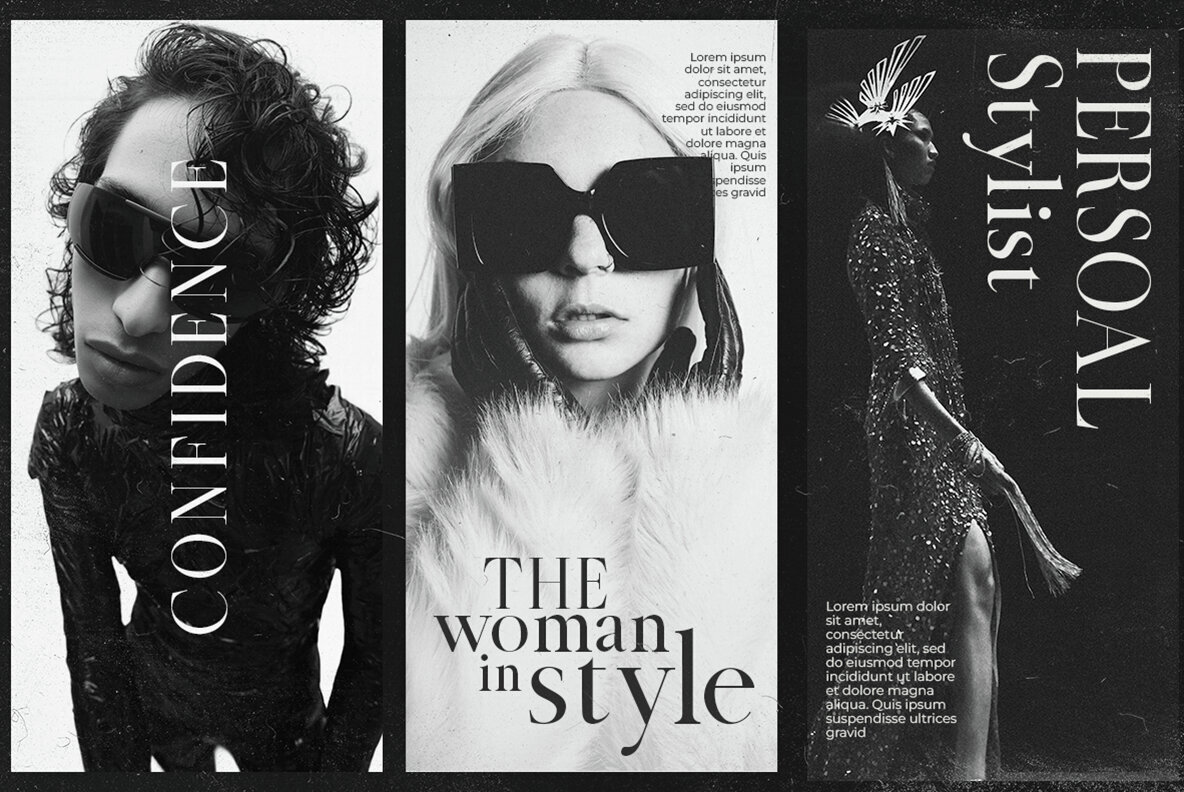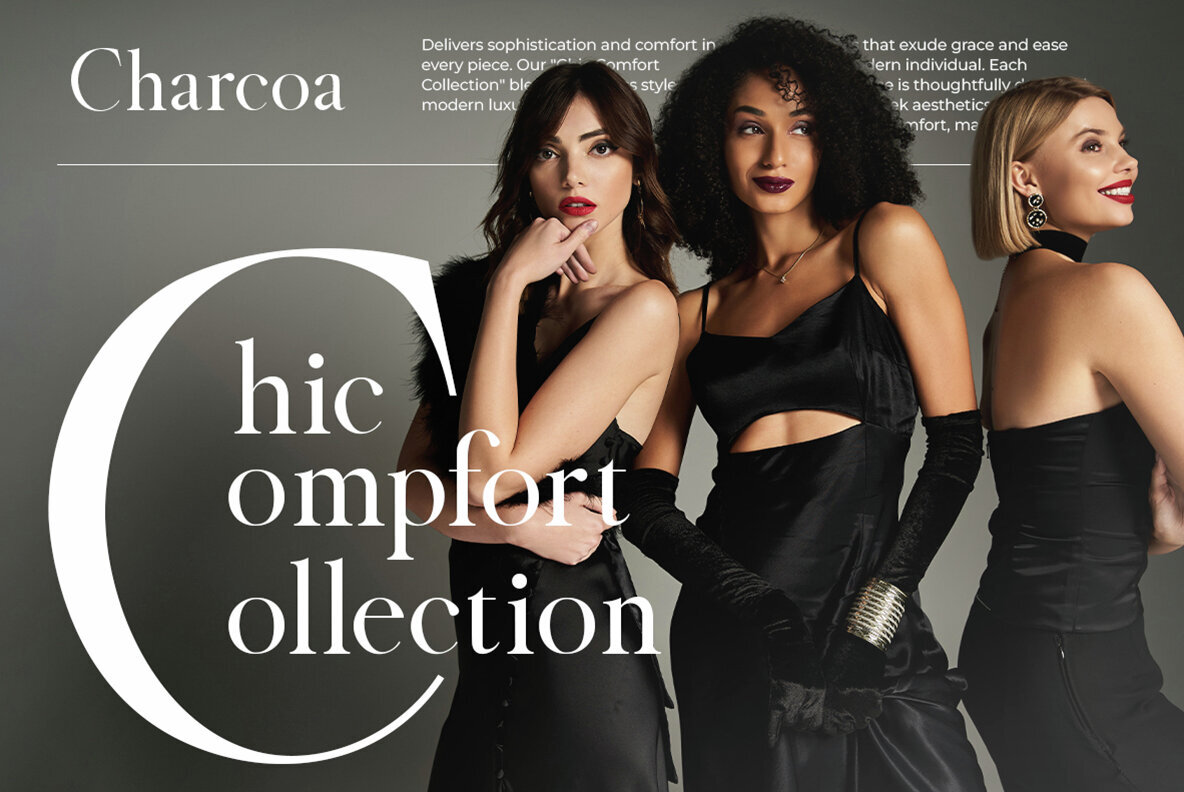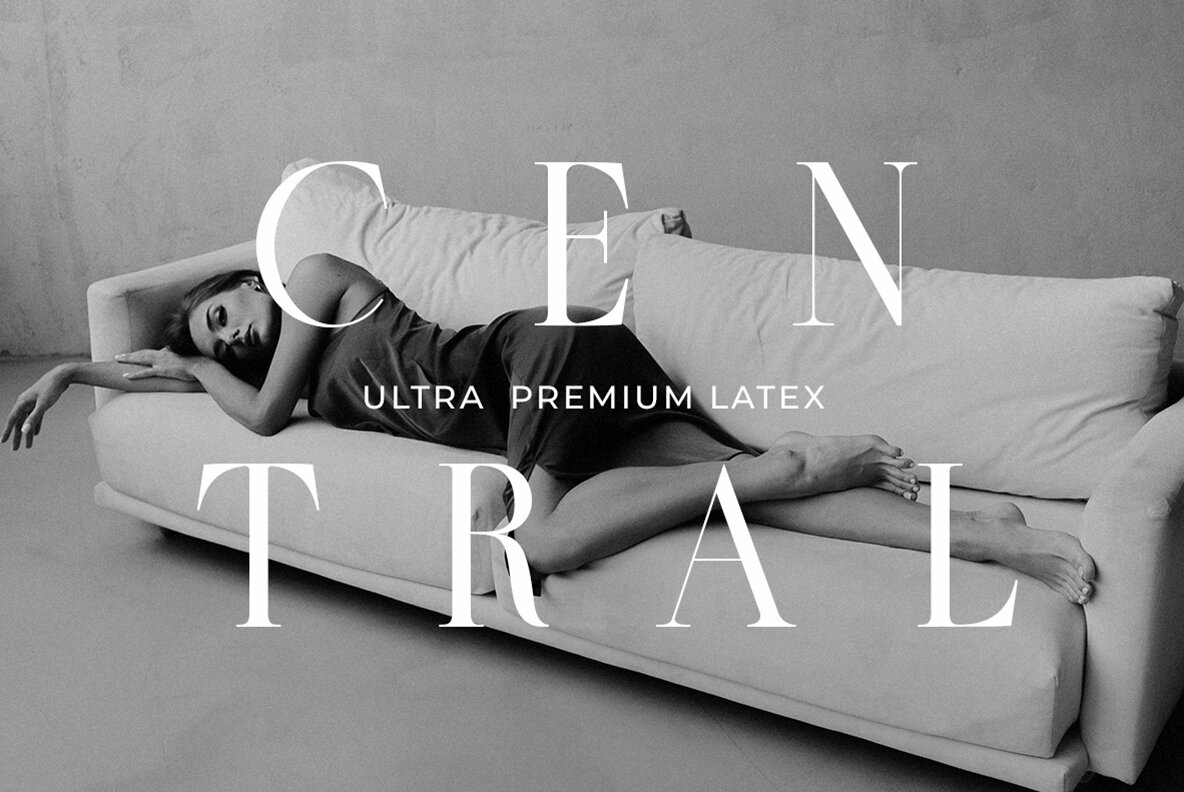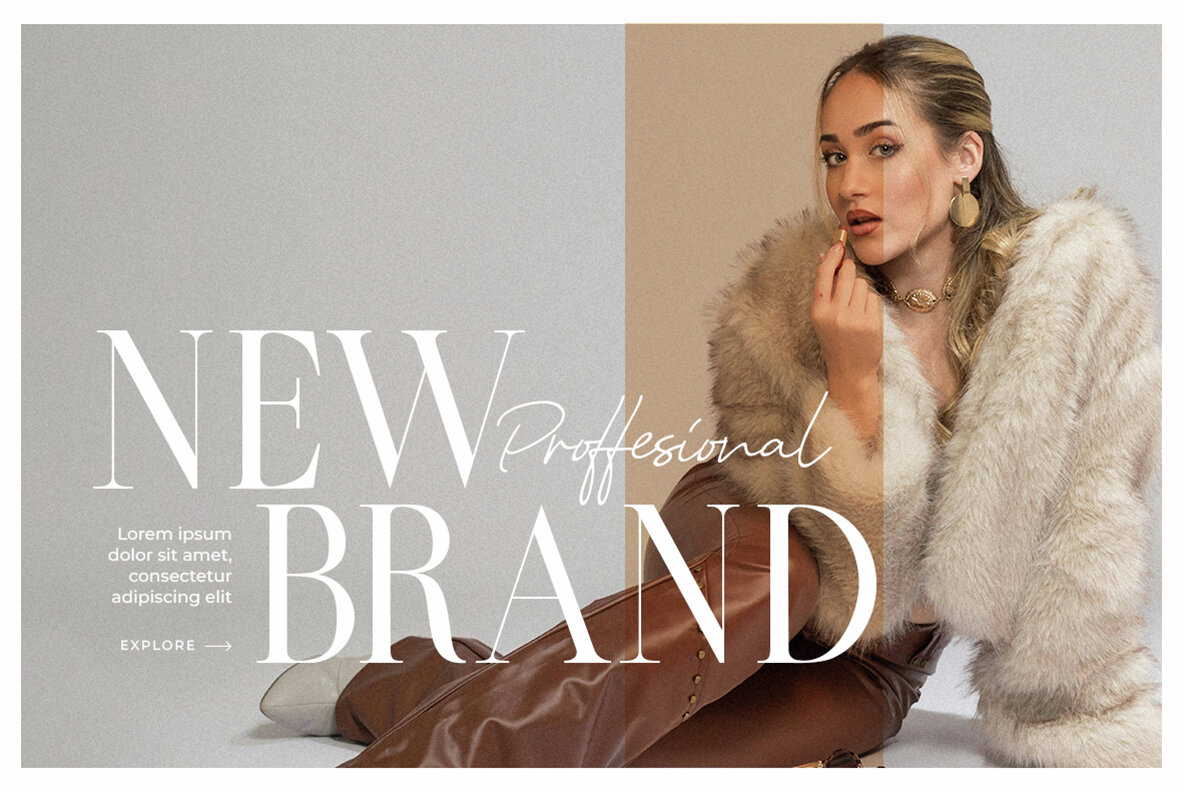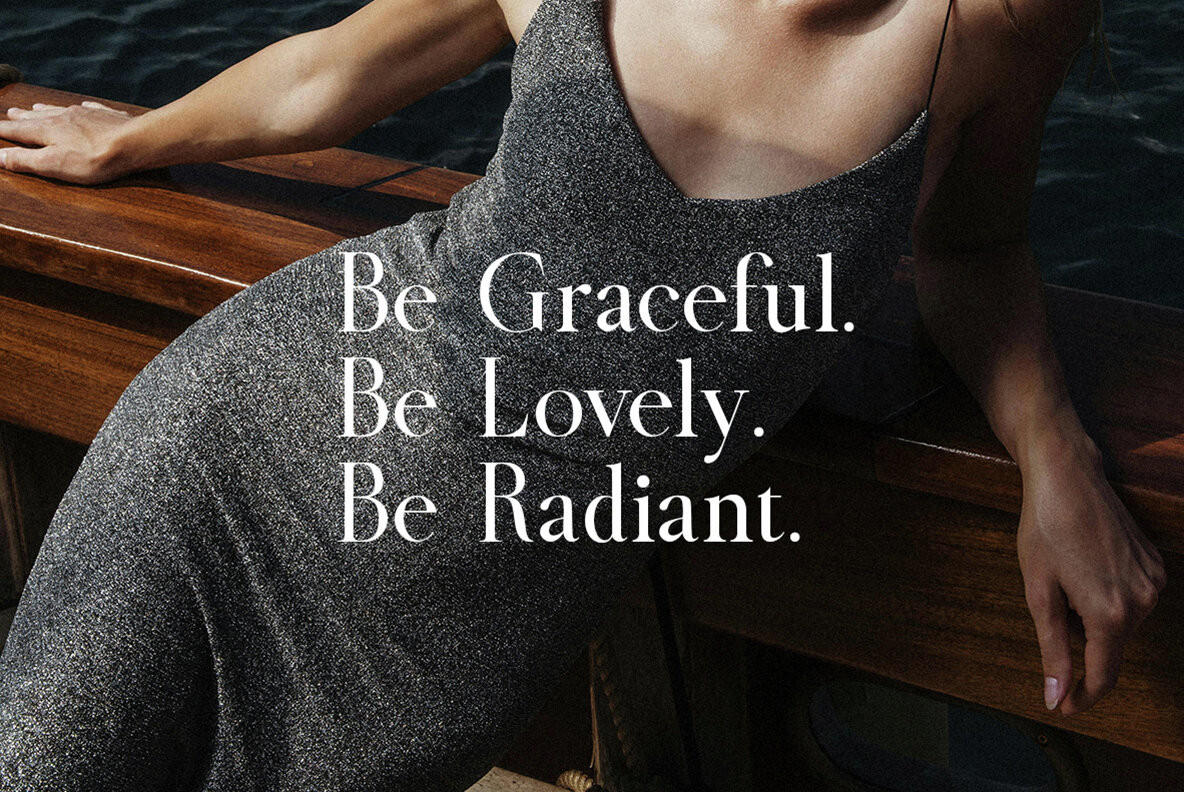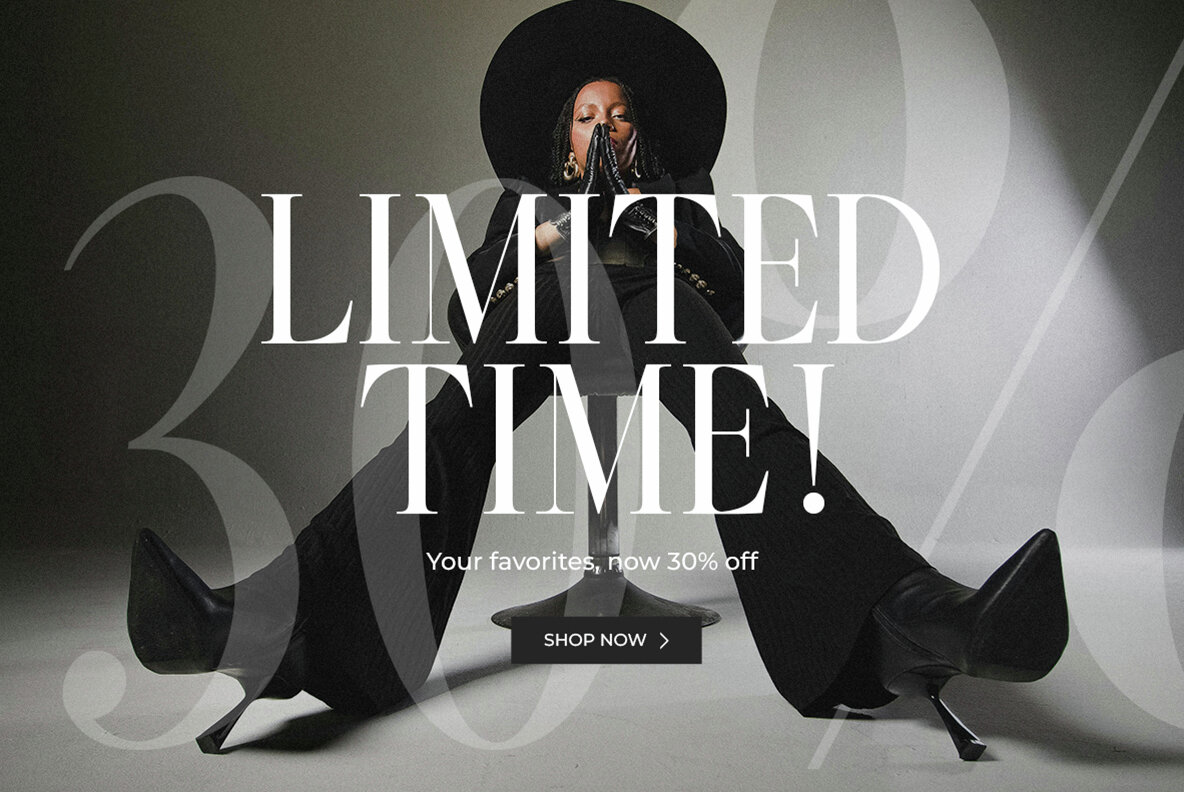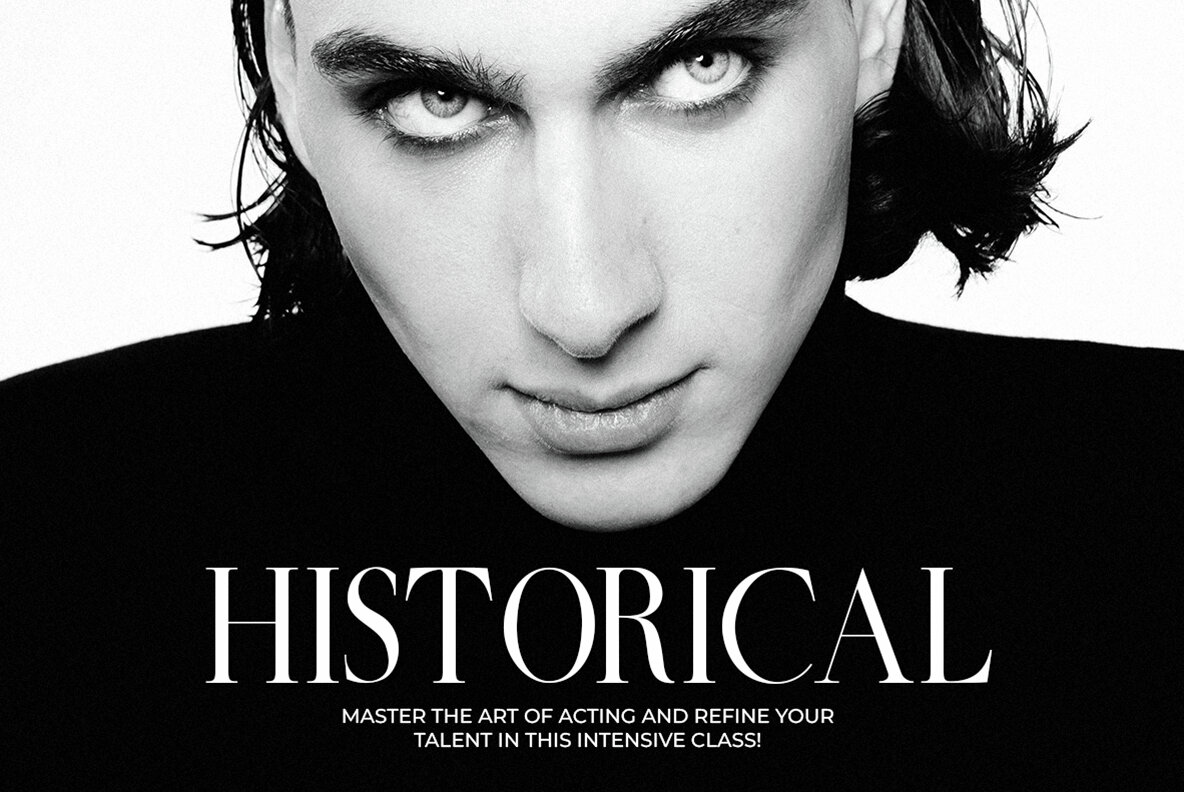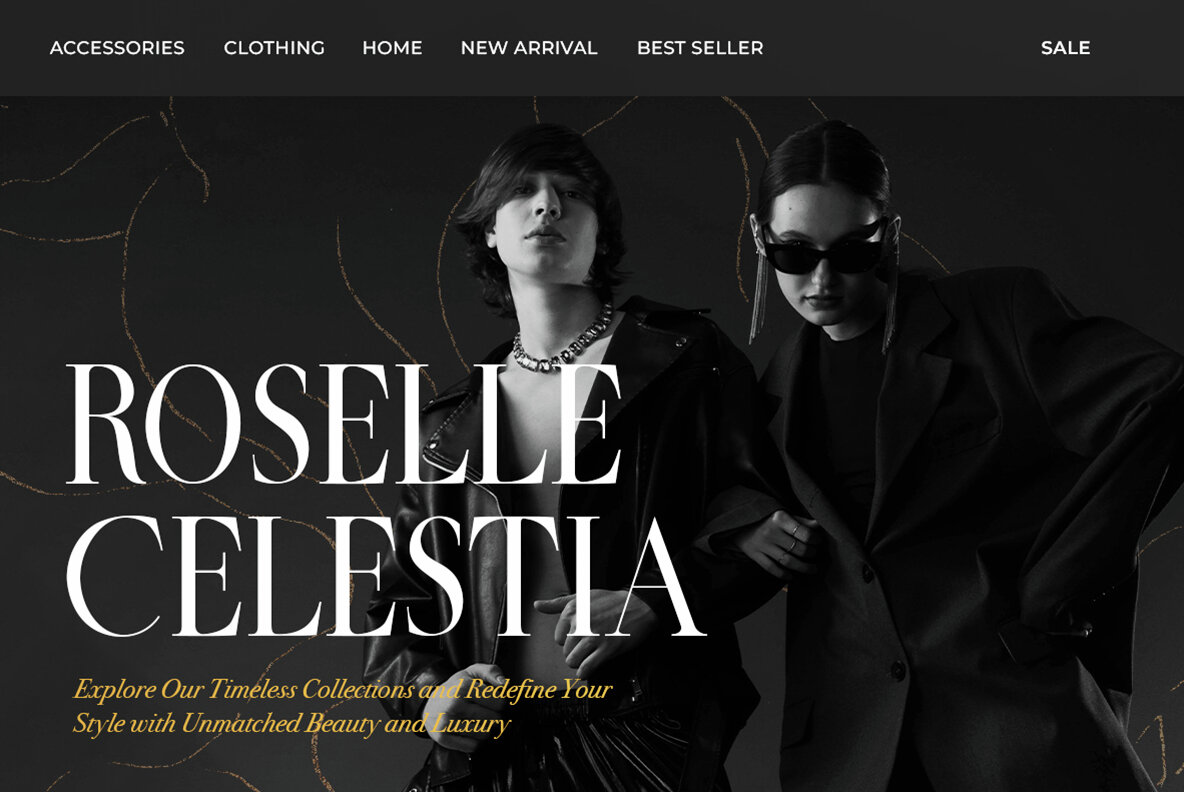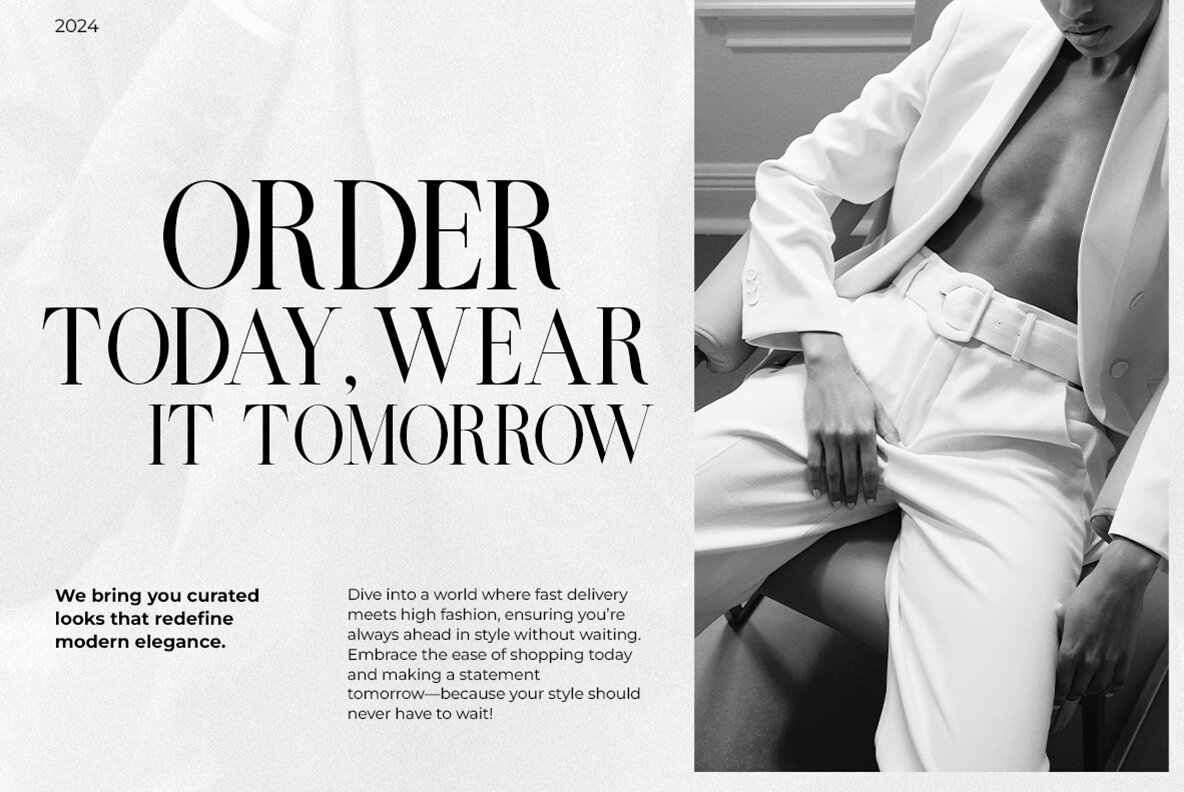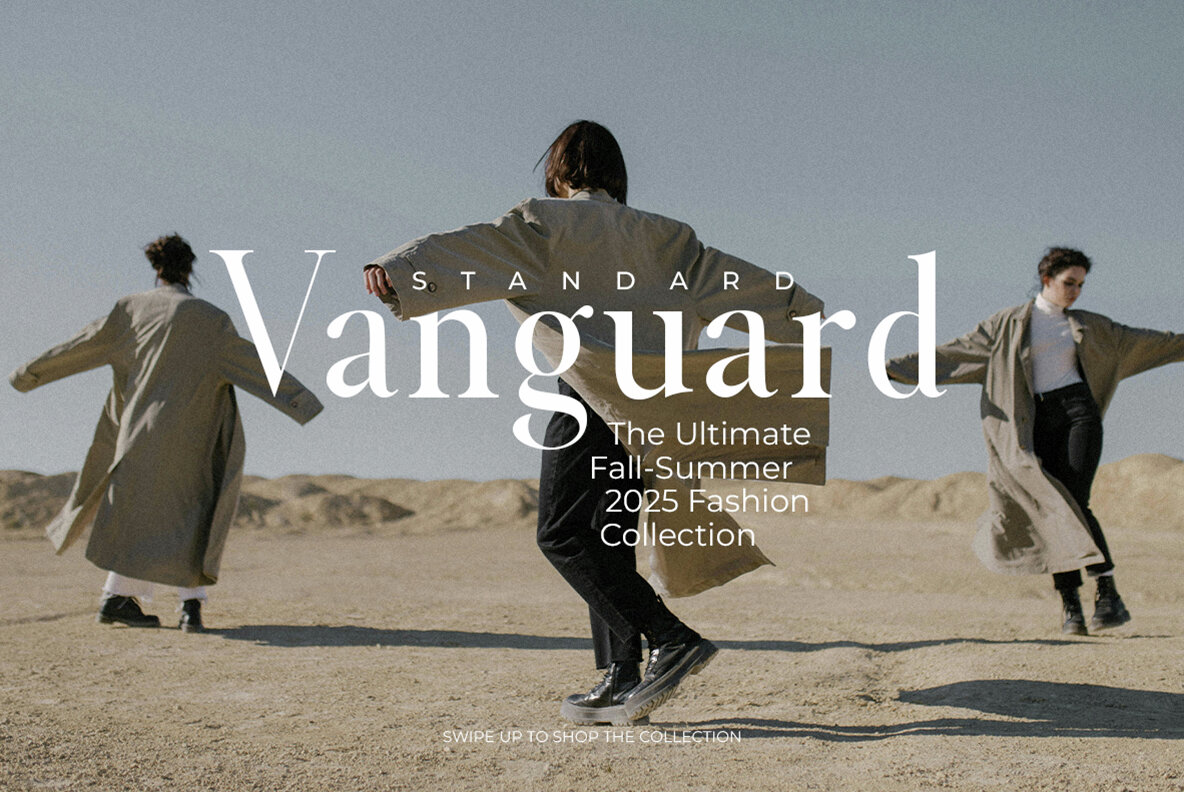
Vorsce Font
Vorsce Regular
The timeless serif font that blends elegance and sophistication. With its refined lines and classic luxury appeal, Vorsce is perfect for high-end branding, editorial design, and premium invitations, bringing exclusivity and enduring beauty to any project.Vorsce: A Legacy of Style in Serif Typography